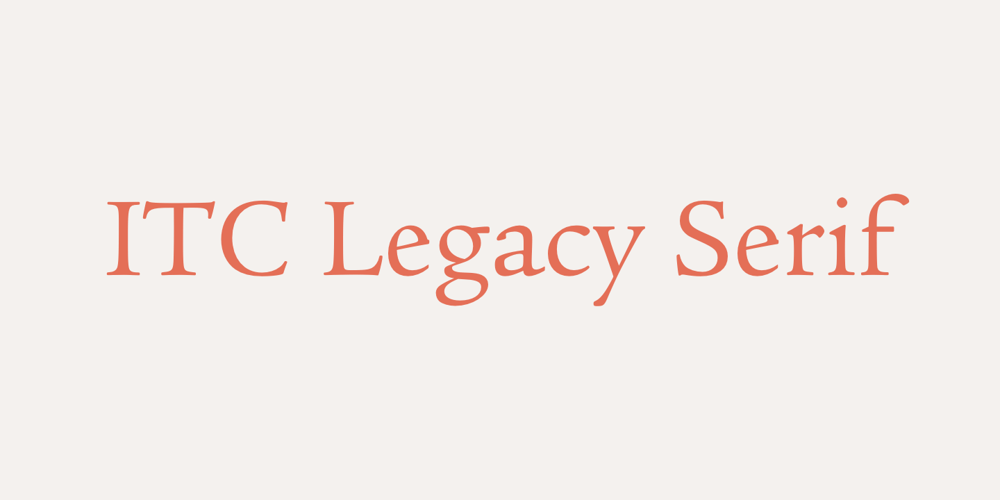
ITC Legacy Serif Font Family was designed by Ronald Arnholm and published by ITC. ITC Legacy Serif contains 18 styles and family package options. ITC Legacy¿ was designed by American Ronald Arnholm, who was first inspired to develop the typeface when he was a graduate student at Yale. In a type history class, he studied the 1470 book by Eusebius that was printed in the roman type of Nicolas Jenson. Arnholm worked for years to create his own interpretation of the Jenson roman, and he succeeded in capturing much of its beauty and character. As Jenson did not include a companion italic, Arnholm turned to the sixteenth-century types of Claude Garamond for inspiration for the italics of ITC Legacy. Arnholm was so taken by the strength and integrity of these oldstyle seriffed forms that he used their essential skeletal structures to develop a full set of sans serif faces. ITC Legacy includes a complete family of weights from book to ultra, with Old style Figures and small caps, making this a good choice for detailed book typography or multi-faceted graphic design projects.In 1458, Charles VII sent the Frenchman Nicolas Jenson to learn the craft of movable type in Mainz, the city where Gutenberg was working. Jenson was supposed to return to France with his newly learned skills, but instead he traveled to Italy, as did other itinerant printers of the time. From 1468 on, he was in Venice, where he flourished as a punchcutter, printer and publisher. He was probably the first non-German printer of movable type, and he produced about 150 editions. Though his punches have vanished, his books have not, and those produced from about 1470 until his death in 1480 have served as a source of inspiration for type designers over centuries. His Roman type is often called the first true Roman.” Notable in almost all Jensonian Romans is the angled crossbar on the lowercase e, which is known as the “Venetian Oldstyle e.””Featured in: Best Fonts for Logos